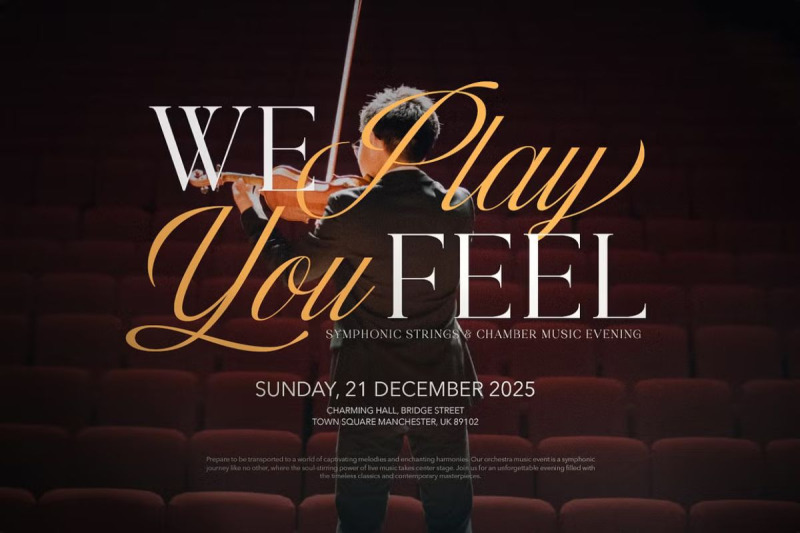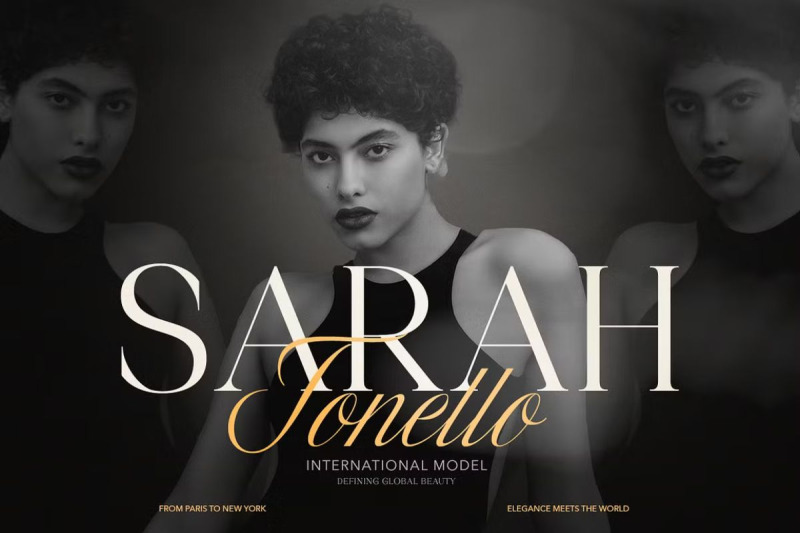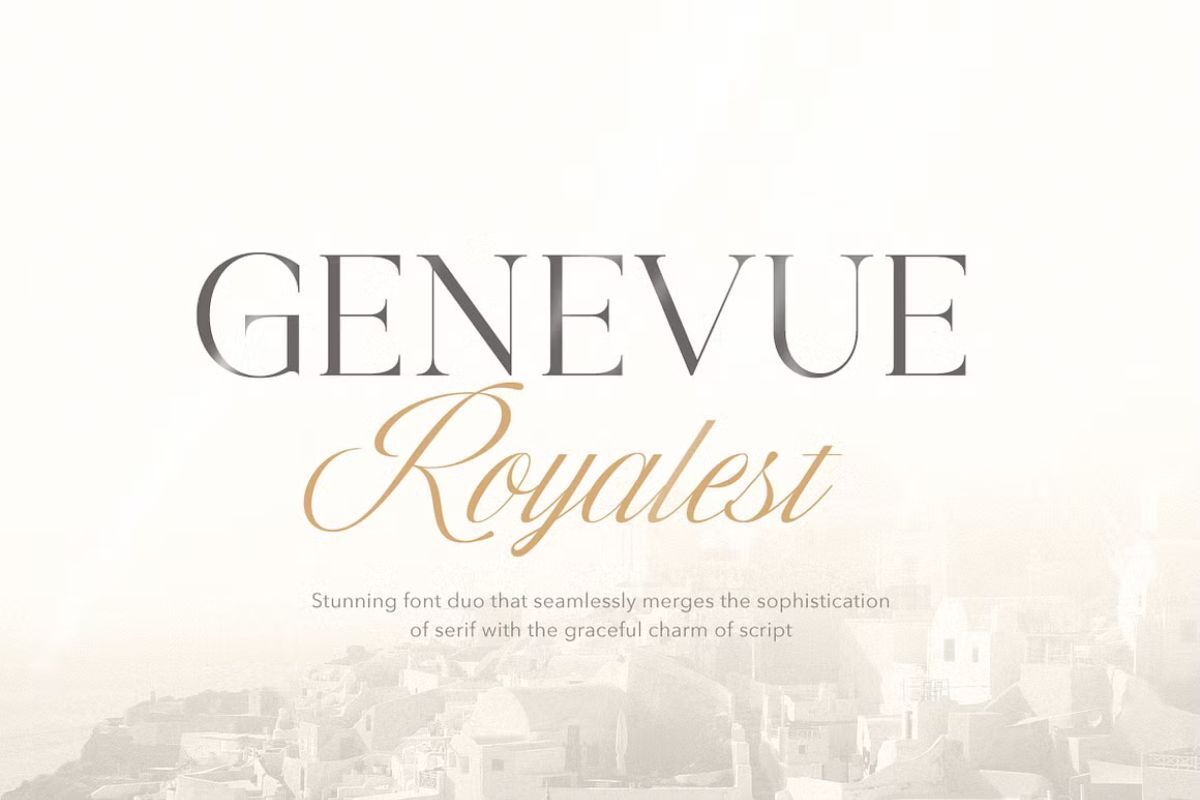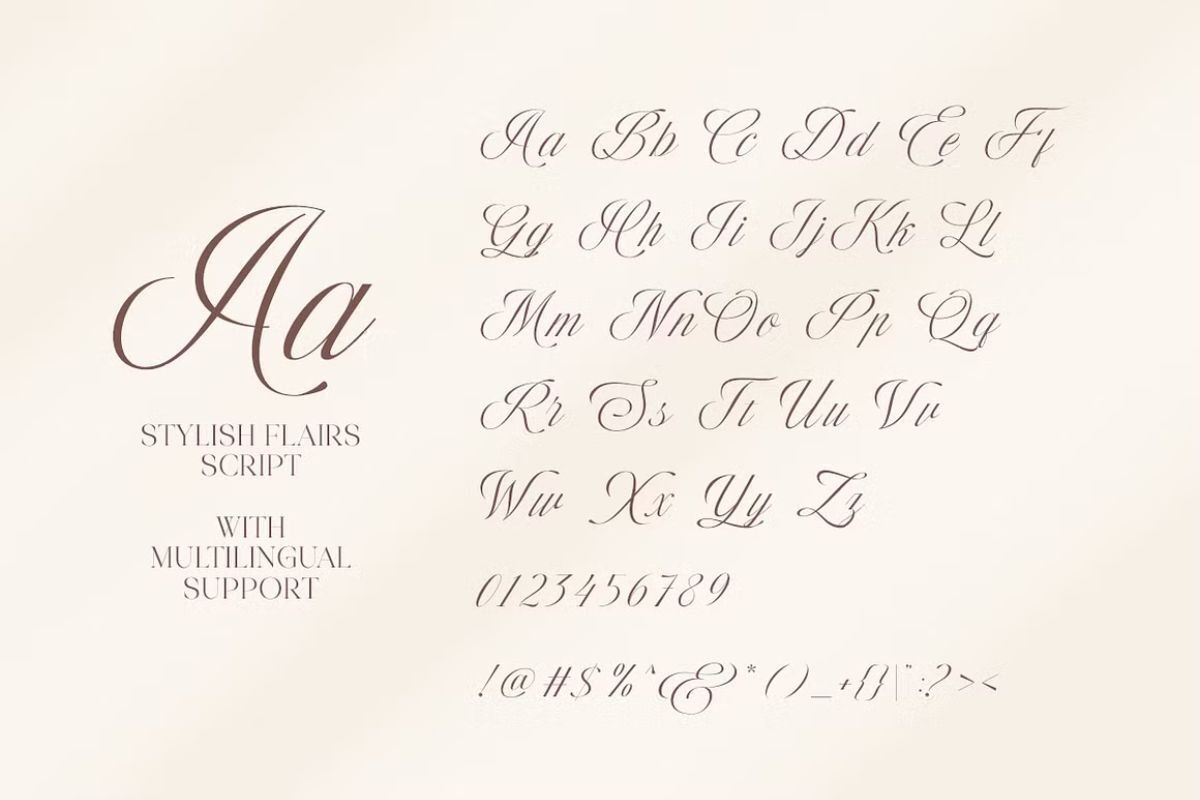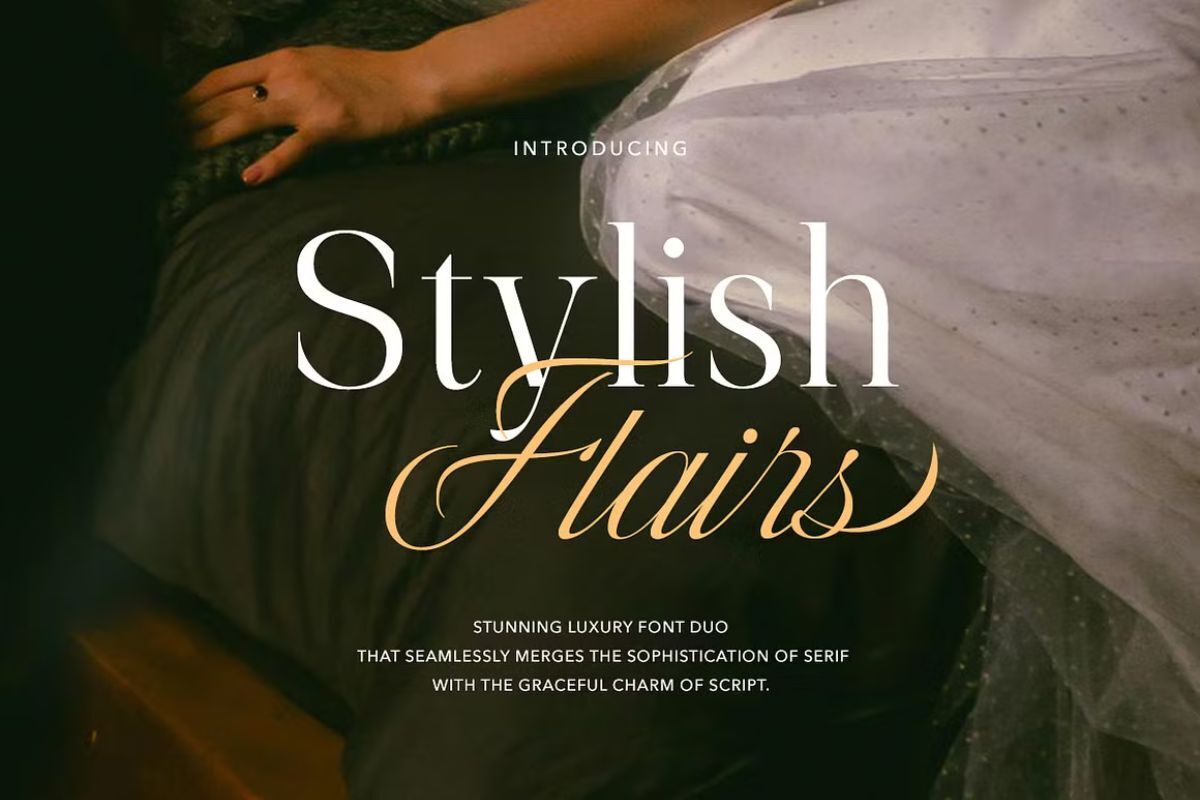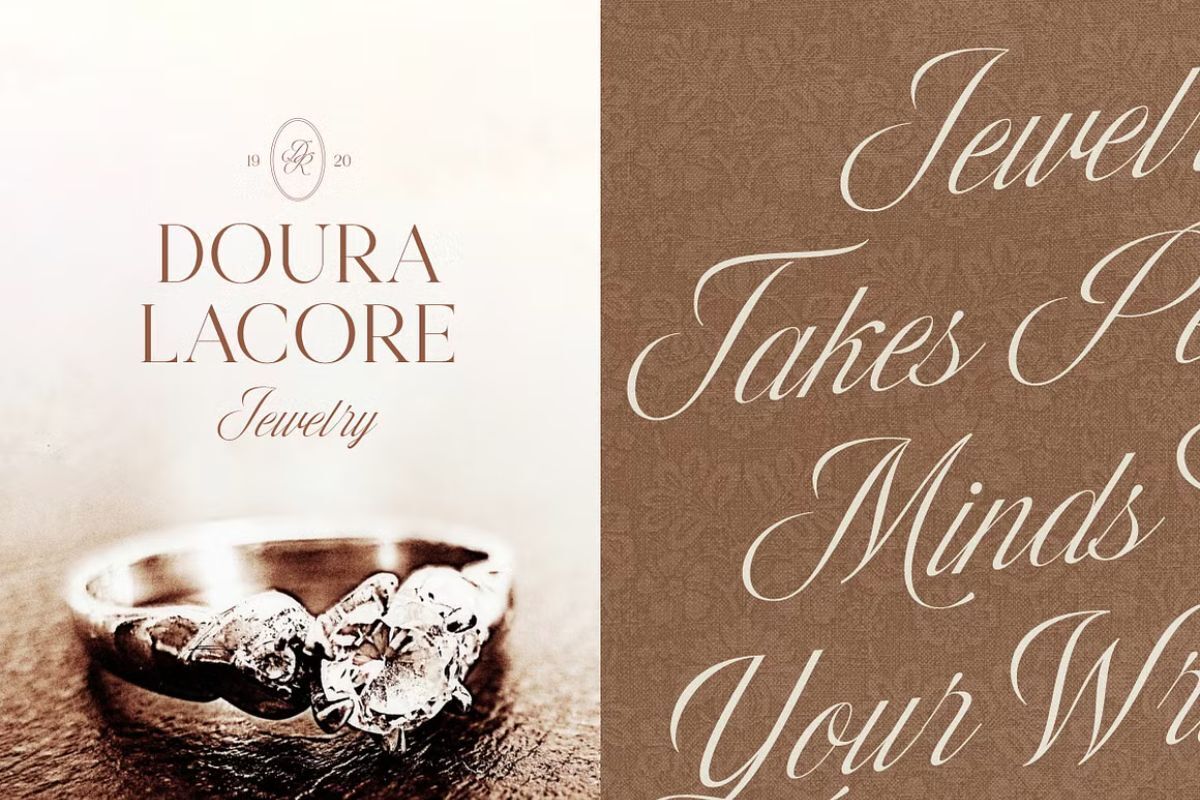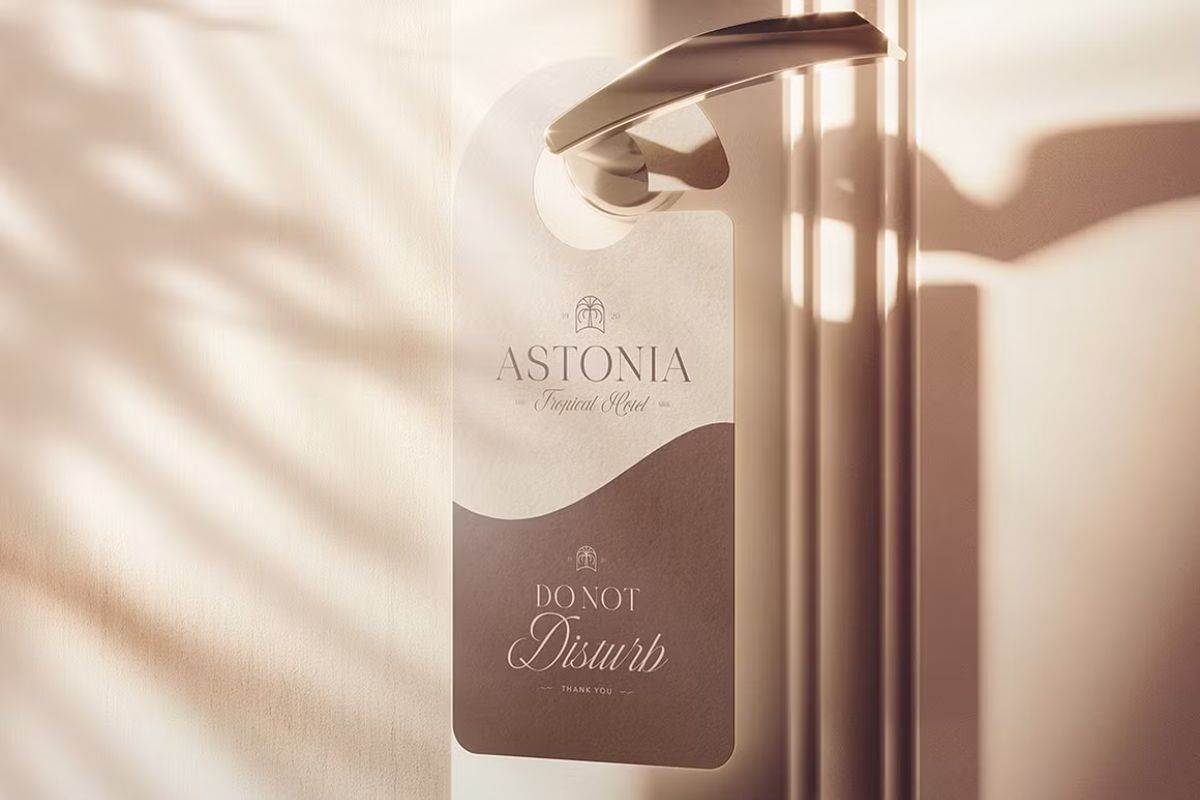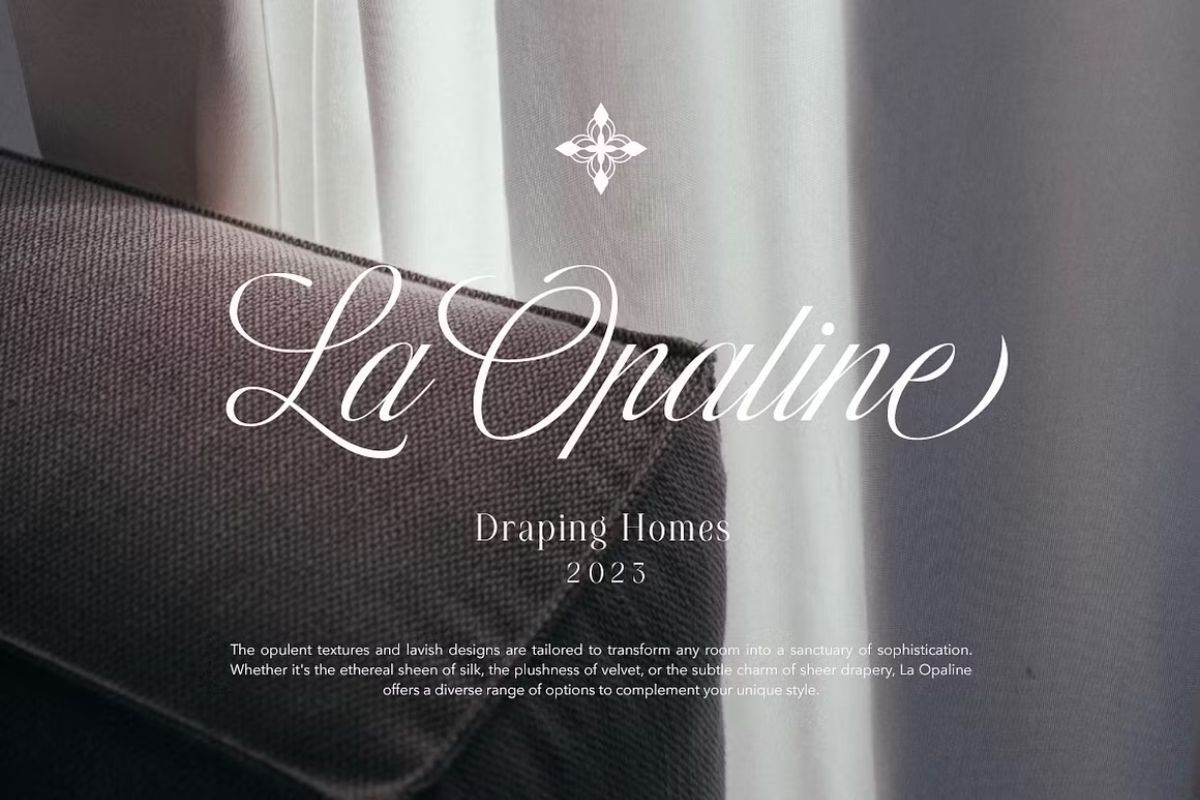
Stylish Flairs - Luxury Font Duo
Stylish Flairs is a stunning luxury font duo that seamlessly merges the sophistication of serif with the graceful charm of script. You can use this font for any purpose, such as branding, logo, or even wedding invitations. You don't have to search for font match, you can get it both in the package. This font is timeless and versatile. Stylish Flairs also support multilingual!
Stylish Flairs Script
Stylish Flairs Serif